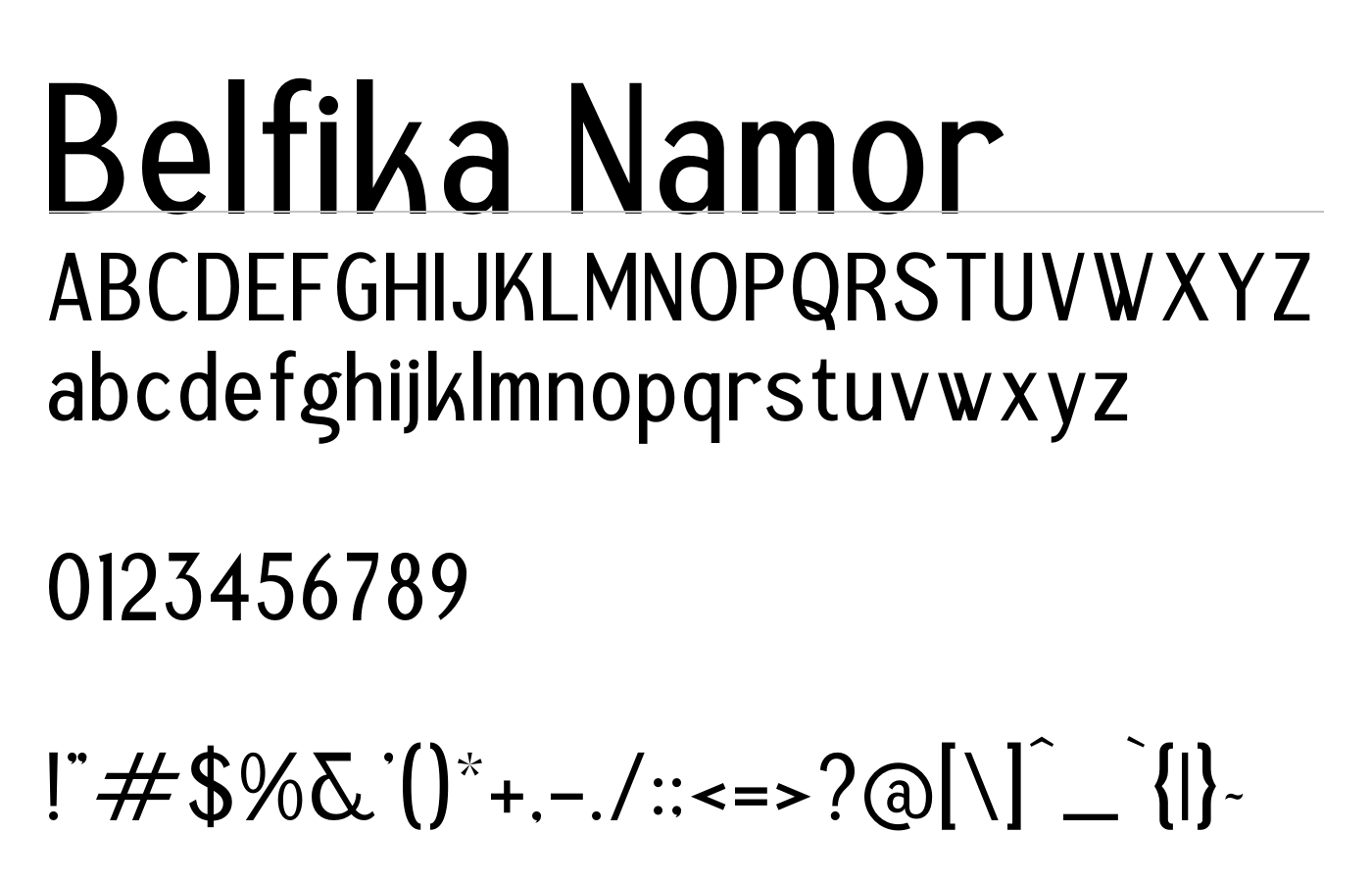
Belfika Namor is a modern sans serif font characterized by its narrow, tall letterforms and subtle stroke contrast that lend it a sleek, slightly condensed appearance. The font features clean lines with small geometric touches, such as the distinctive notched "k" and a double-story "g," giving it a contemporary and unique personality well suited for editorial headlines, branding, and sophisticated digital interfaces. Its elegant yet approachable style makes it ideal for projects seeking a refined but modern aesthetic.
Belfika Namor Font
About Belfika Namor Font